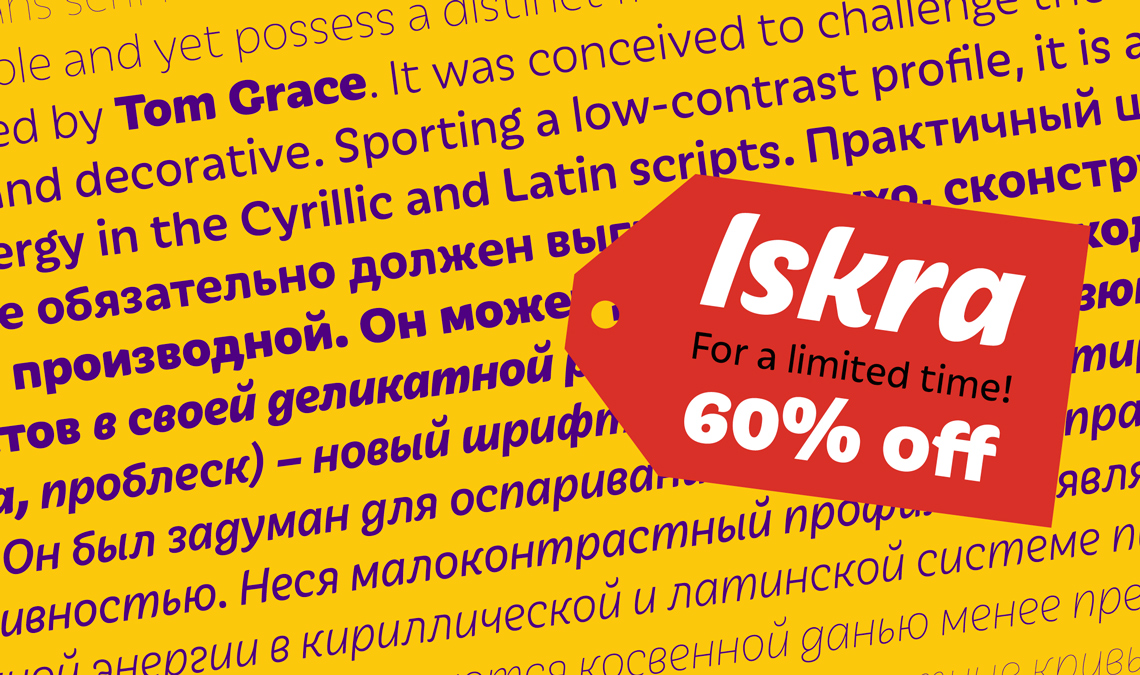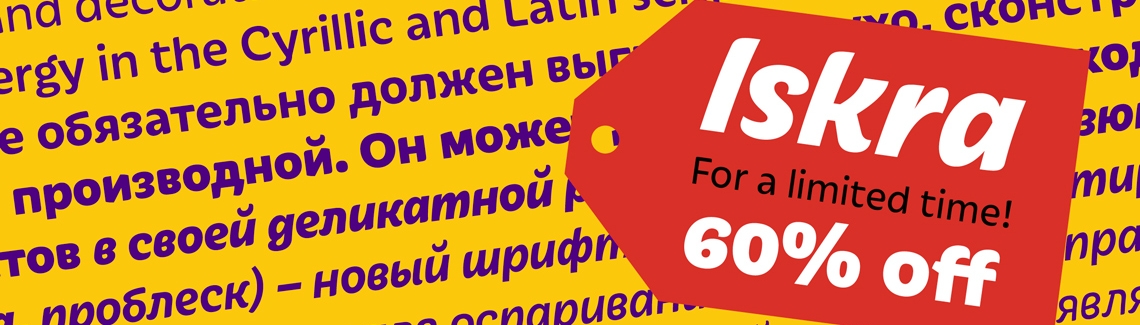
Sporting a low-contrast profile, it is a study of bridled energy in the Cyrillic and Latin scripts. Iskra’s eye-catching forms contain daring and elegant curves, economical proportions, a slightly top-heavy asymmetry, and are an oblique tribute to the less predictable style of brush lettering. Its warmth comes from the subtle emphasis on the structures and details of individual letterforms, whereas its predictability is demonstrated through its balanced rhythm over long spans of text.
Available in 14 styles, Iskra is a stimulating, forward-looking perspective on how we see both the vitality of the particular letter and the overall harmony of text.